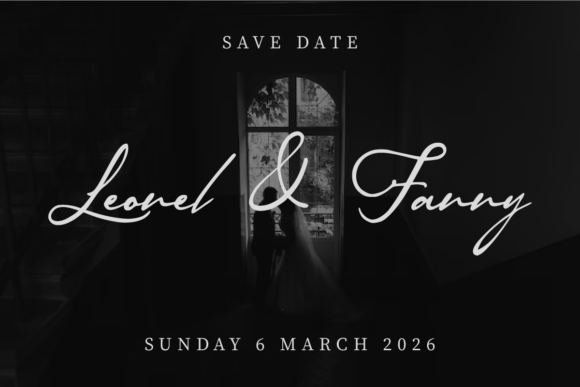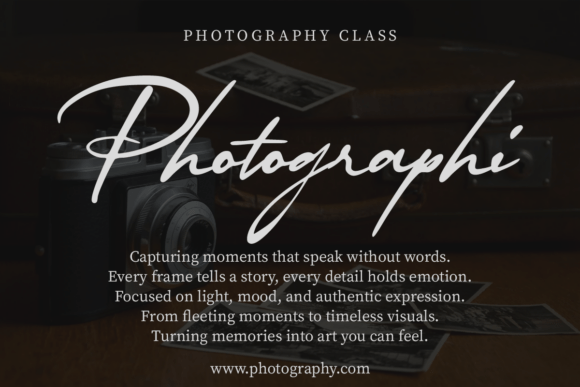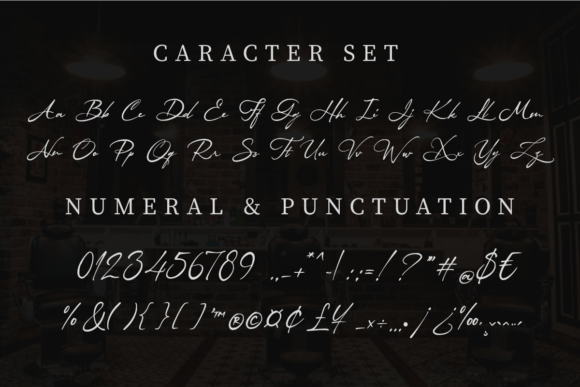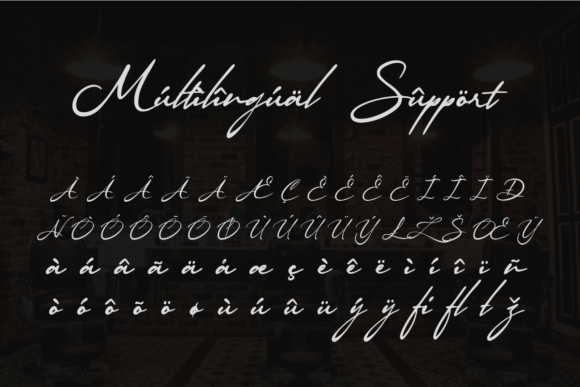
Introducing Blacksky Faltron: The Ultimate Modern Script Font for Creative Projects
In the world of typography, a font can make or break a design. For creative professionals, finding the perfect font that embodies elegance, sophistication, and expressiveness can be a daunting task. However, with Blacksky Faltron, a modern stylish handwritten script font, your search is over. Designed to feel classy yet natural, Blacksky Faltron delivers a strong and expressive look, perfect for premium creative projects.
What Makes Blacksky Faltron Stand Out?
Blacksky Faltron boasts elegant strokes and a smooth flow, making it an ideal choice for designers and crafters looking to add a touch of luxury to their work. Its modern and stylish design ensures that it stands out from the crowd, while its handwritten script style adds a personal and human touch to any project. Whether you’re working on a logo, branding, poster, headline, fashion design, photography, packaging, social media, or luxury display text, Blacksky Faltron is the perfect companion.
Key Features of Blacksky Faltron
- Modern Stylish Design: Blacksky Faltron features a sleek and contemporary design that will elevate your creative projects to the next level.
- Elegant Strokes: The font’s elegant strokes add a touch of sophistication and class to any design.
- Smooth Flow: The smooth flow of the font ensures that it looks great in both digital and print formats.
- Classy yet Natural: Blacksky Faltron strikes the perfect balance between being classy and natural, making it versatile for various design applications.
- Strong and Expressive: The font’s strong and expressive look makes it perfect for premium creative projects that require a bold statement.
Use Cases for Blacksky Faltron
Blacksky Faltron is a versatile font that can be used in a variety of design applications, including:
- Logo and Branding: Create a lasting impression with a custom logo that exudes elegance and sophistication.
- Poster and Headline: Grab attention with a bold and eye-catching headline that showcases your message.
- Fashion Design: Add a touch of luxury to your fashion designs with a font that’s both stylish and expressive.
- Photography: Use Blacksky Faltron to add a touch of elegance to your photography projects, such as album covers or promotional materials.
- Packaging: Make your product stand out on store shelves with a font that’s both modern and sophisticated.
- Social Media: Elevate your social media presence with a font that’s both stylish and engaging.
- Luxury Display Text: Use Blacksky Faltron to create stunning luxury display text that’s sure to impress.
Why Choose Blacksky Faltron?
- Unique Design: Blacksky Faltron features a unique design that’s both modern and stylish.
- High-Quality: The font is designed to deliver high-quality results in both digital and print formats.
- Versatile: Blacksky Faltron is versatile and can be used in a variety of design applications.
- Elegant and Expressive: The font’s elegant and expressive look makes it perfect for premium creative projects.
In conclusion, Blacksky Faltron is a modern stylish handwritten script font that’s perfect for creative professionals looking to add a touch of luxury to their projects. With its elegant strokes, smooth flow, and strong and expressive look, Blacksky Faltron is sure to impress. Whether you’re working on a logo, branding, poster, headline, fashion design, photography, packaging, social media, or luxury display text, Blacksky Faltron is the perfect companion. So why wait? Download Blacksky Faltron today and take your creative projects to the next level!